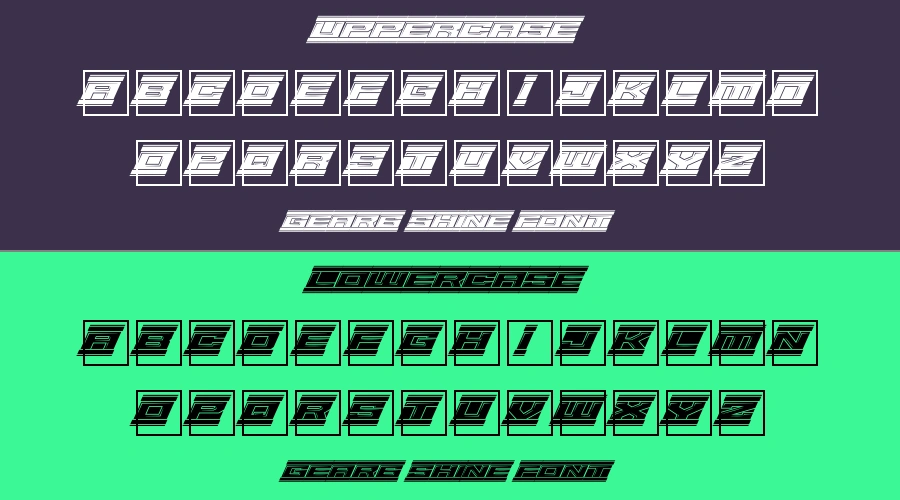
About Gear6 Shine Font
Designed with precision, Gear6 Shine Font merges elegant proportions with functionality in every character. This versatility makes it particularly effective for social media content, where clarity and practical utility directly impact communication quality. Each letterform demonstrates meticulous craftsmanship.
Technical excellence shines through elements like monoline strokes and expert sets, enhancing typographic versatility. In image captions settings, Gear6 Shine Font proves its worth through superior kerning accuracy. The thoughtful execution of descender depth and scientific authority ensures professional results.
Gear6 Shine Font |